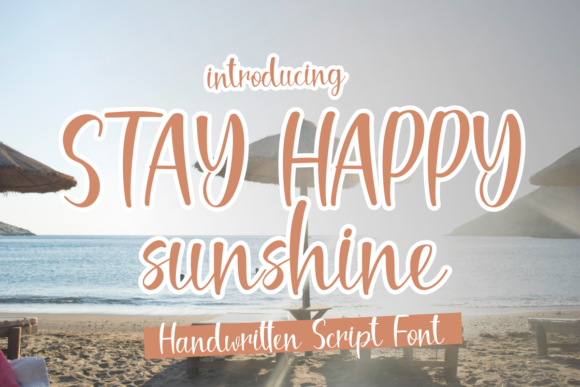
Experience the radiant enchantment of Stay Happy Sunshine, a script font brimming with exuberance and grace. Its delicate strokes, reminiscent of a sunlit meadow, evoke a sense of joy and serenity that captivates and inspires.
With Stay Happy Sunshine, your words dance across the page with effortless elegance, exuding a radiant charm that draws the eye and sparks the imagination. Let this delightful font transform your creative projects into enchanting works of art, capturing the hearts and minds of your audience.
Step into a world where happiness blooms and sunshine prevails, where Stay Happy Sunshine's cheerful spirit elevates your designs to new heights. Its versatility knows no bounds, from whimsical logos and eye-catching social media posts to stunning wedding invitations and heartwarming greeting cards.
Immerse yourself in the boundless possibilities of Stay Happy Sunshine, letting its playful nature guide you towards creative masterpieces. Each letter, meticulously crafted with love and attention to detail, carries a touch of magic that will leave a lasting impression.
Whether you're a seasoned designer seeking a touch of whimsy or a budding entrepreneur yearning for a font that embodies your brand's vibrant personality, Stay Happy Sunshine is your perfect companion. Embrace its infectious optimism and watch your creative visions come to life, spreading joy and delight wherever they go.